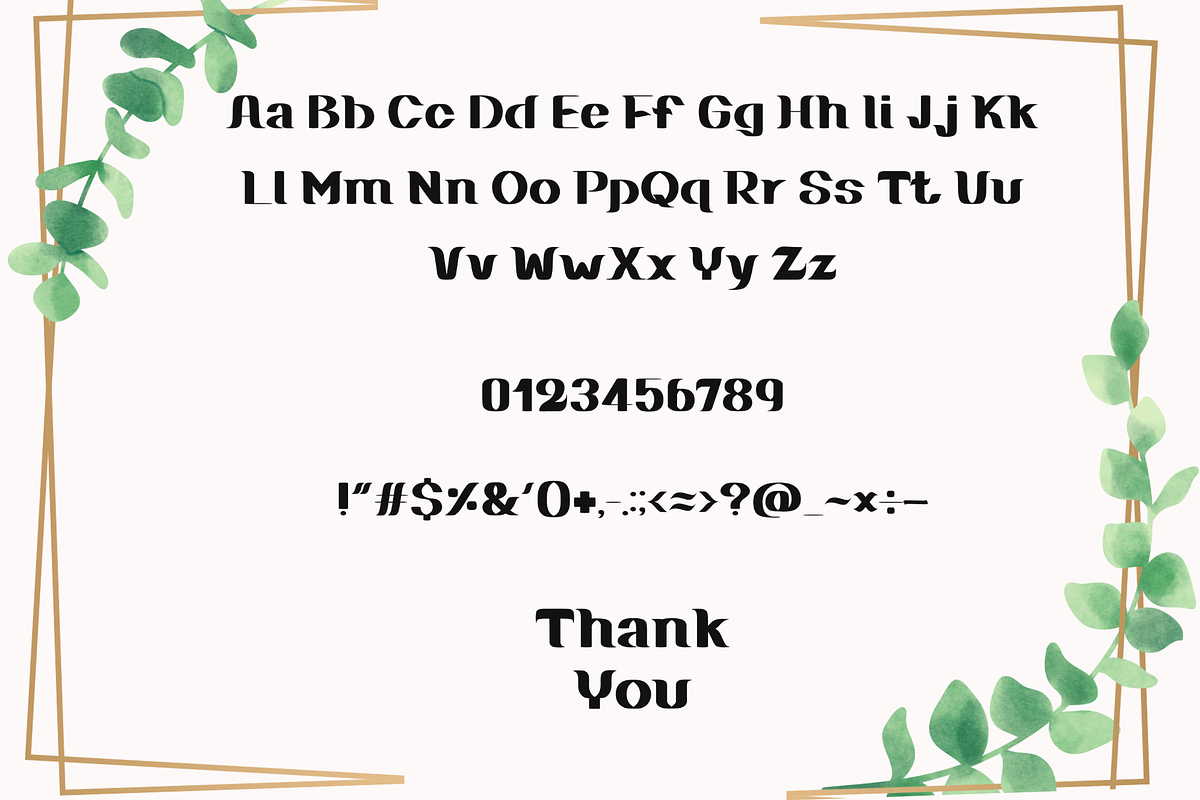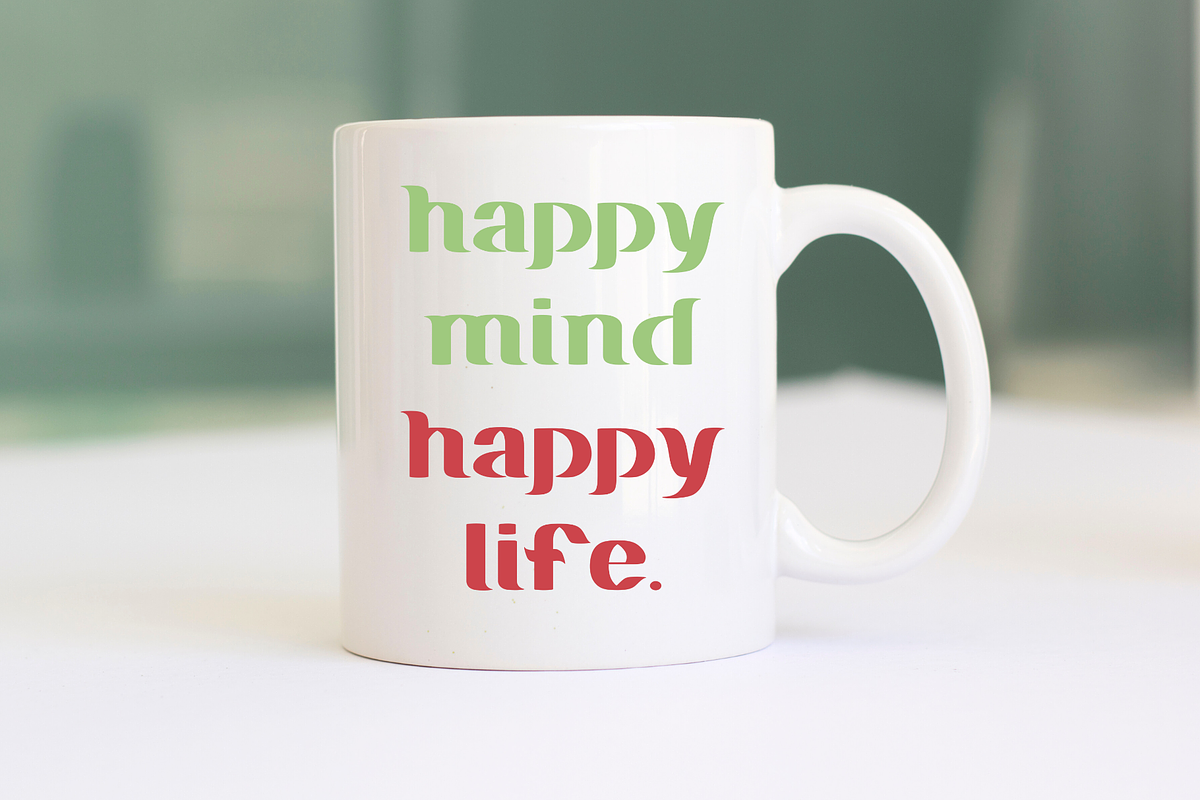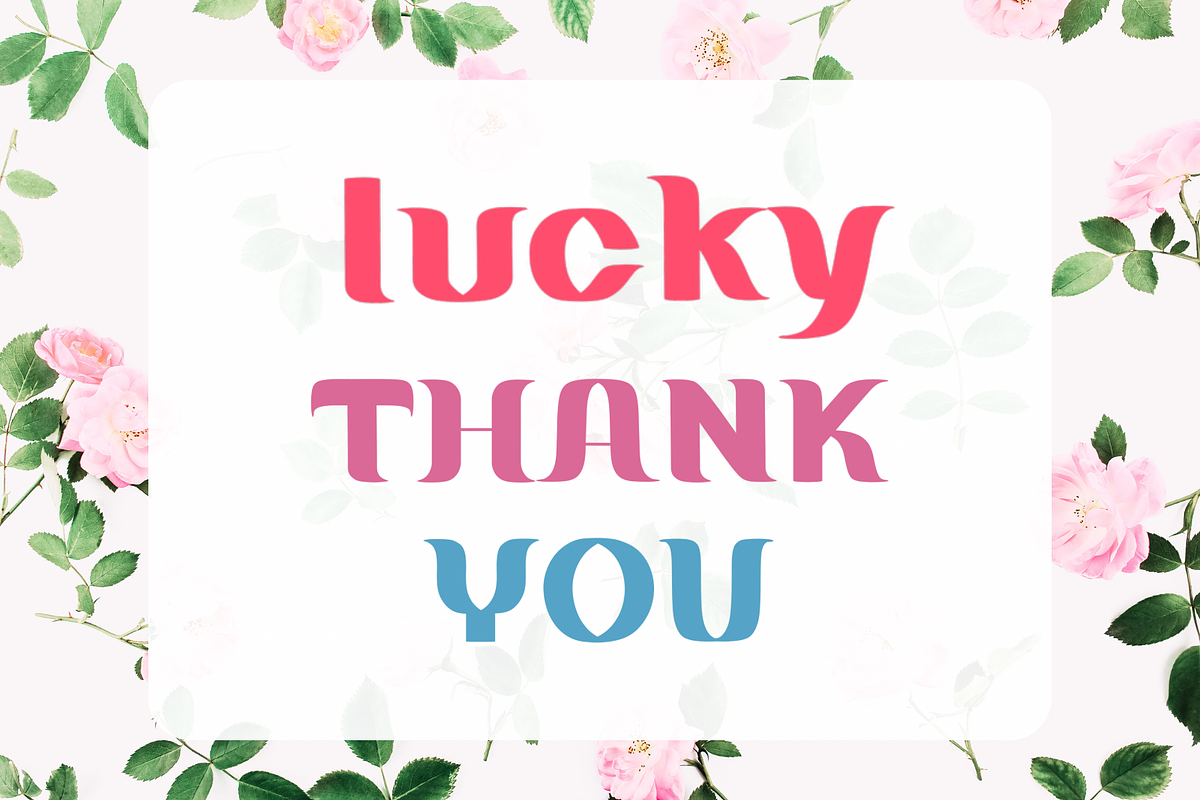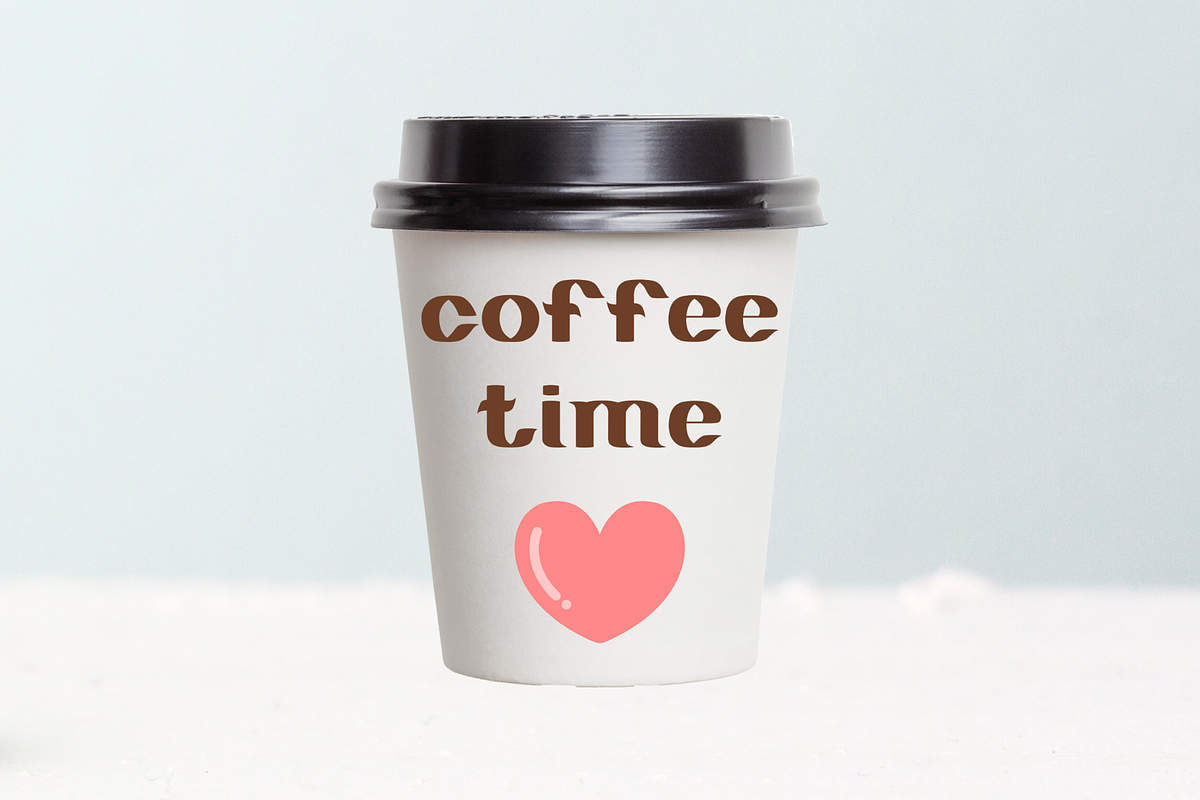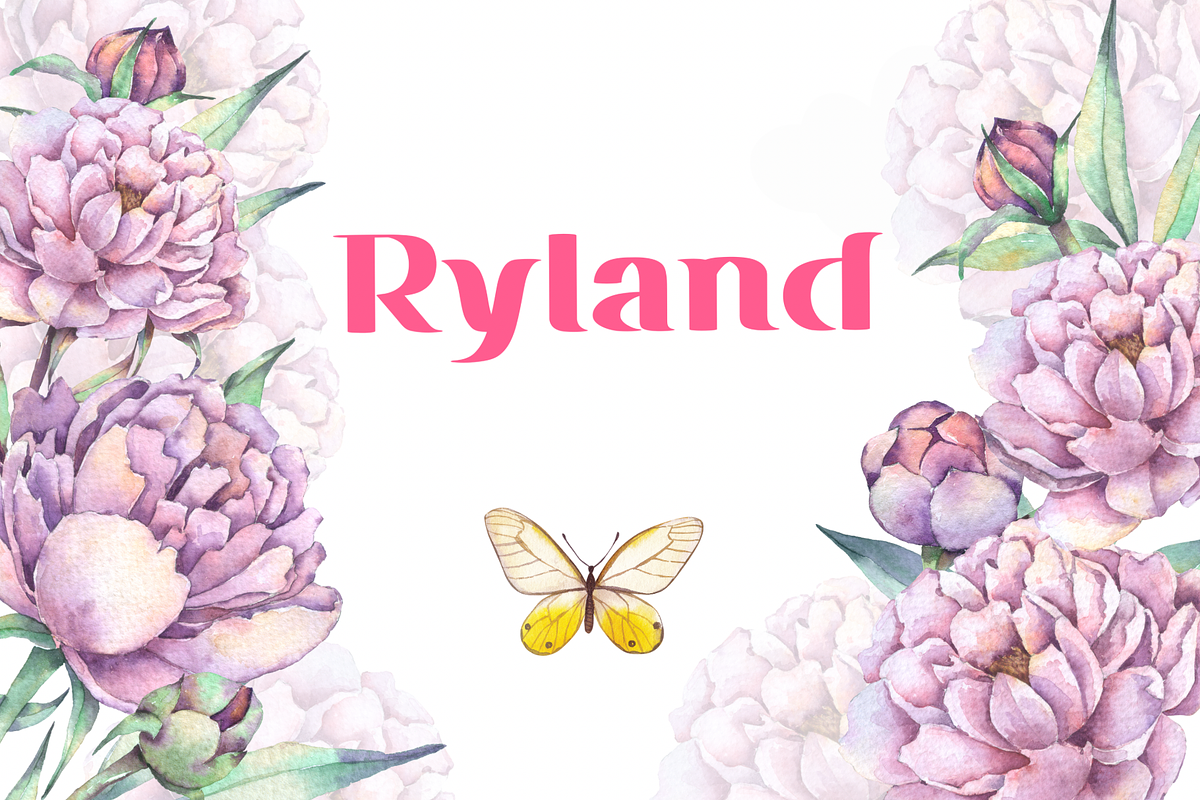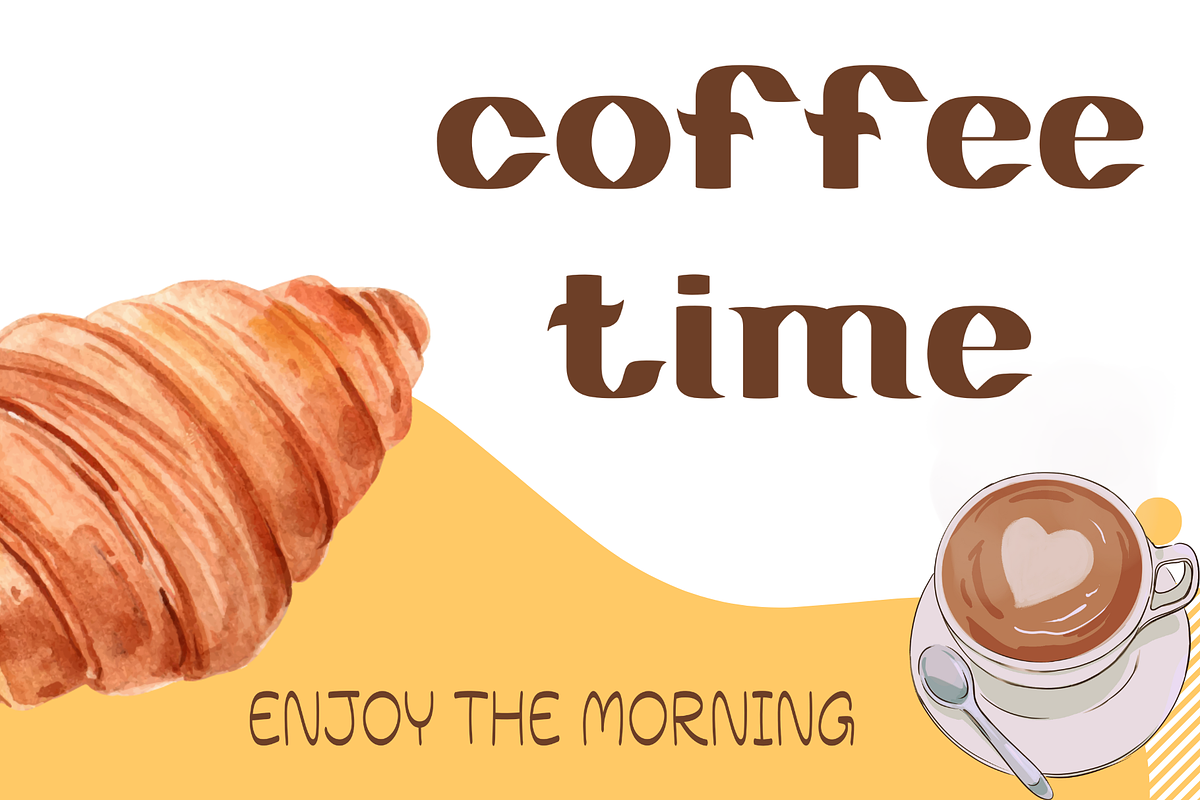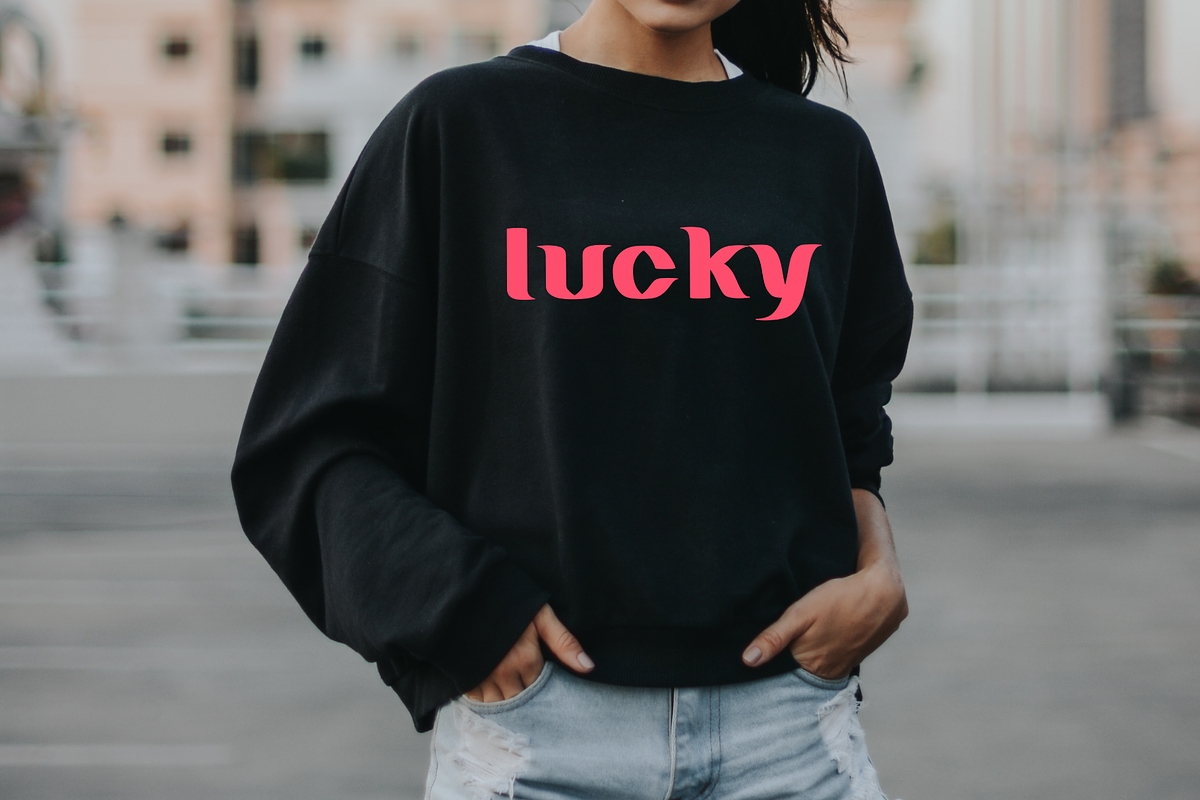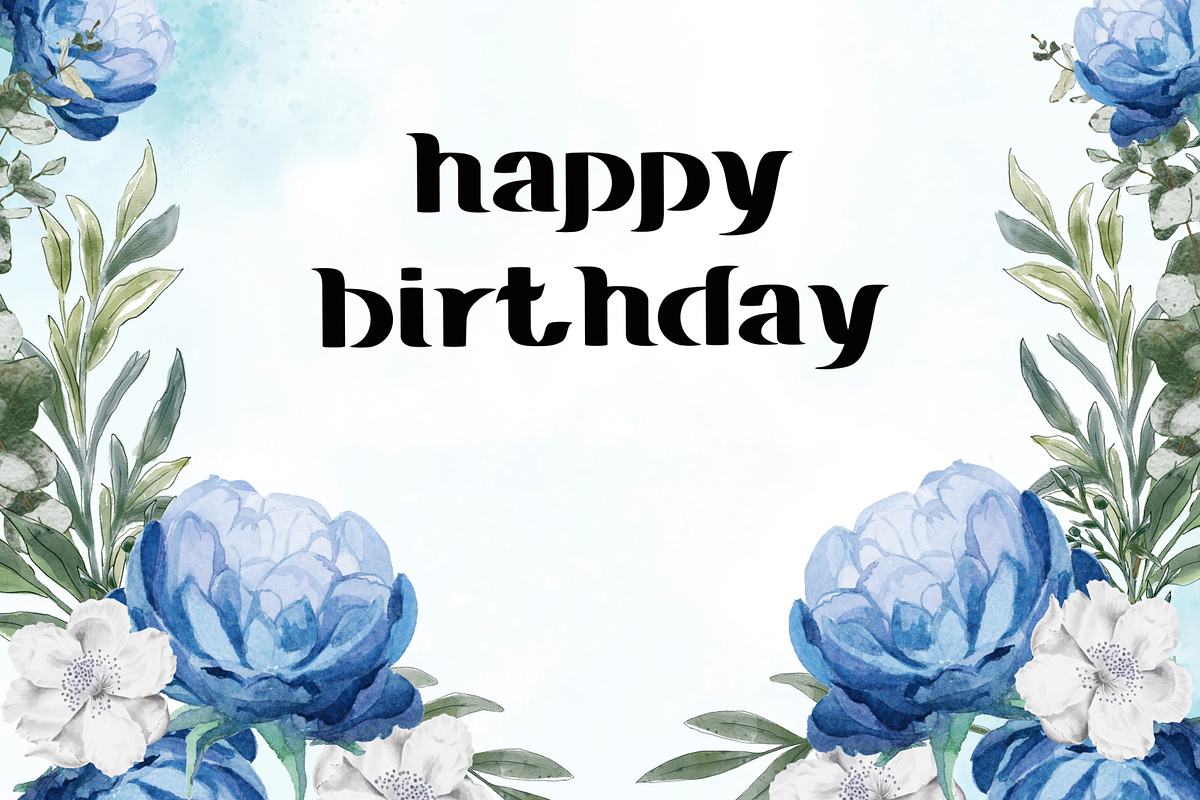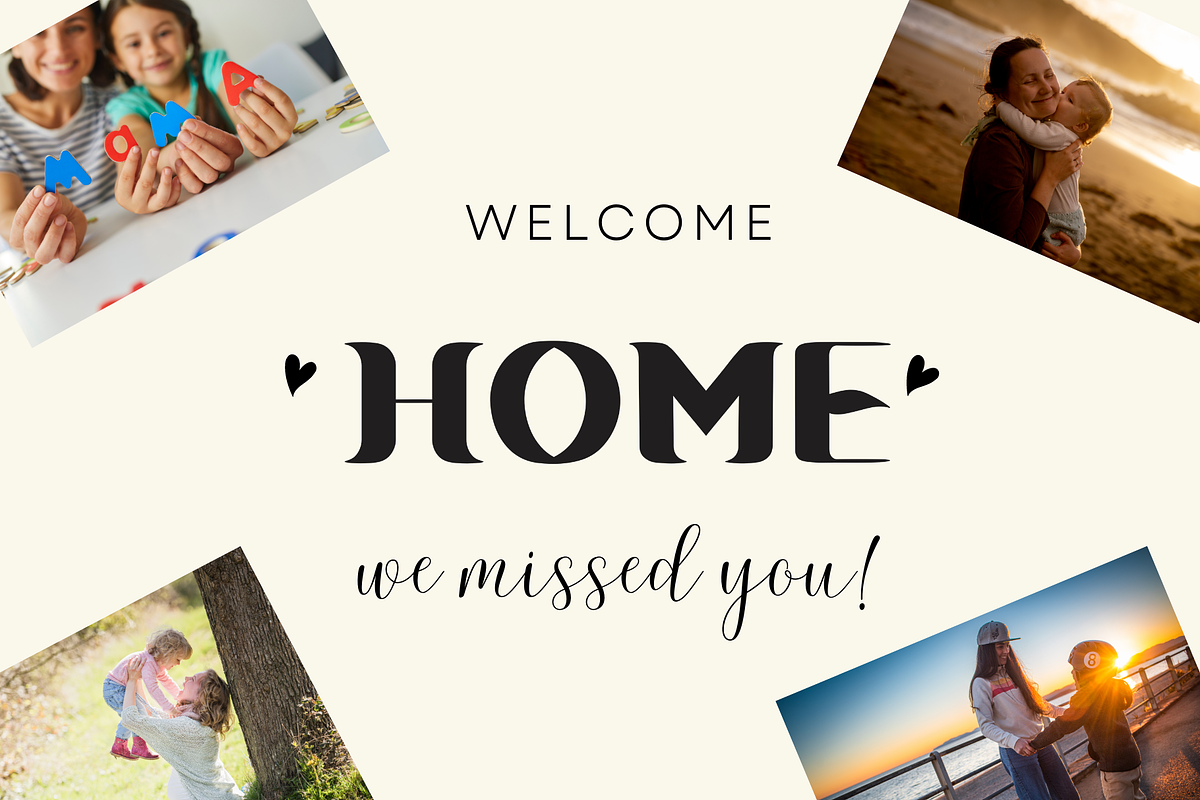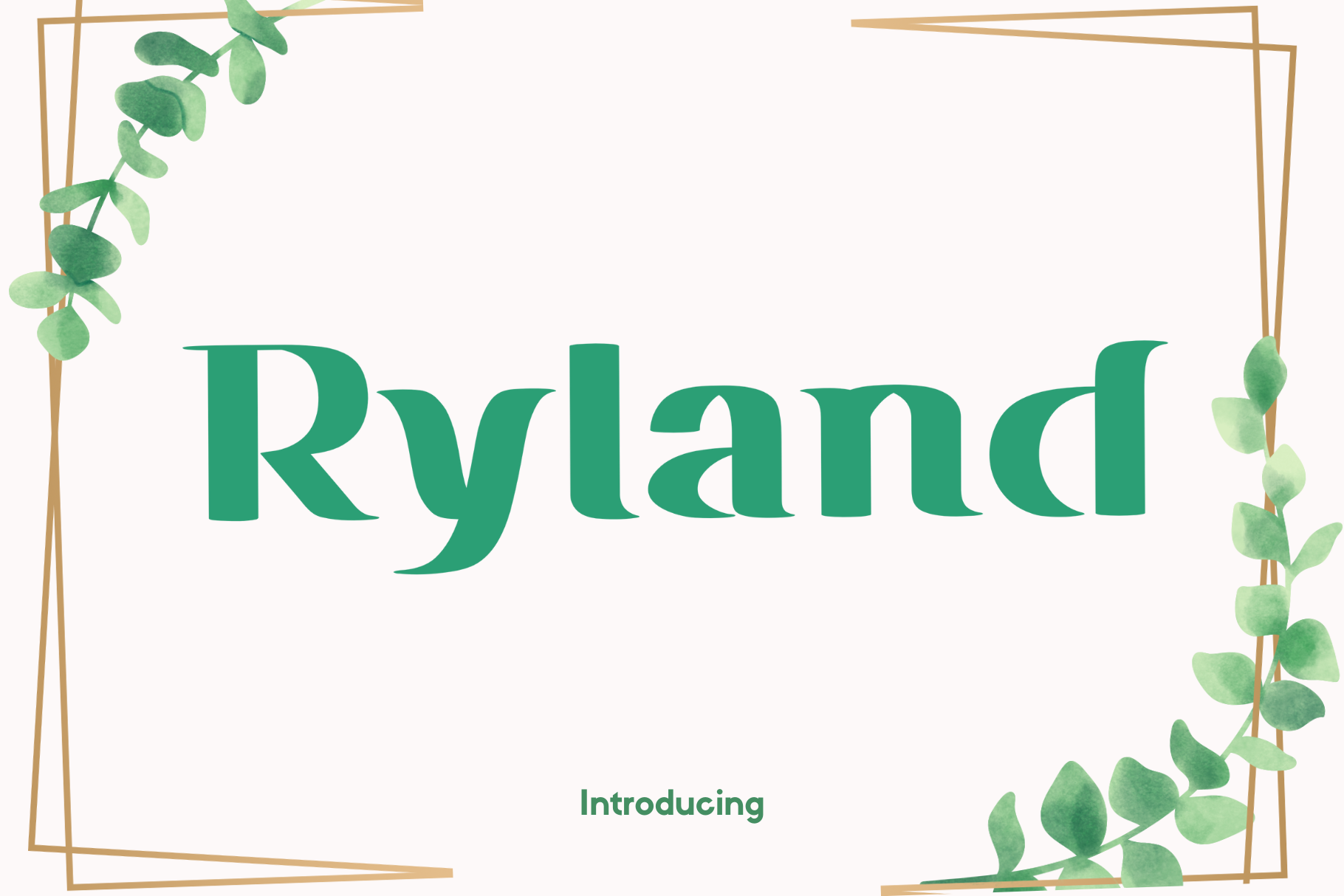
Ryland Font
Ryland is a cute and groovy handwritten display font suitable for designing T-shirts, tote bags, hats, stickers, wedding invitations, logos, cards, quotes, and more!